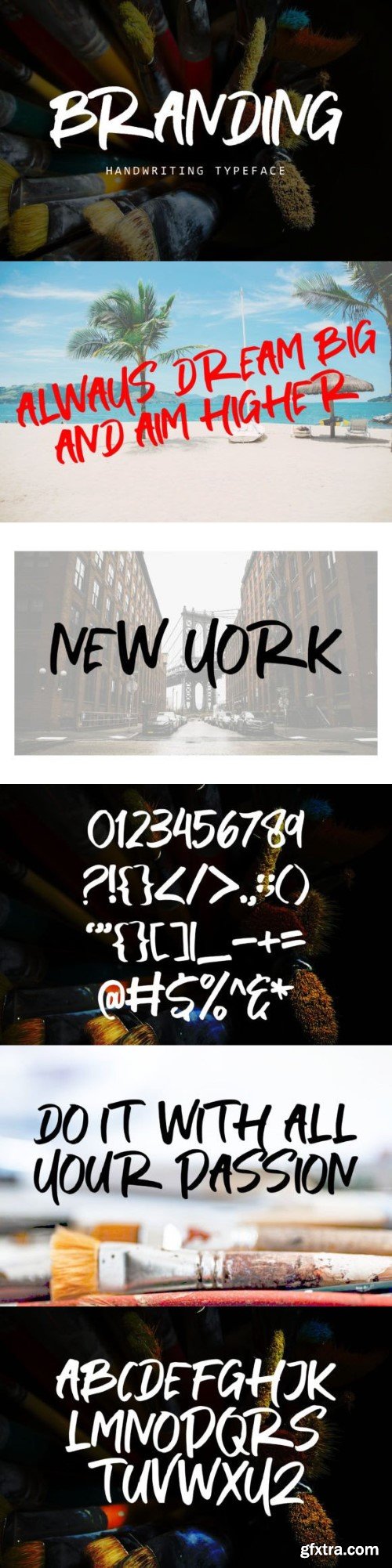
Branding handwriting brush typeface that is suitable for design projects ; logo, branding, poster, quotes, and any other designs. Branding is unique, so natural and catchy.